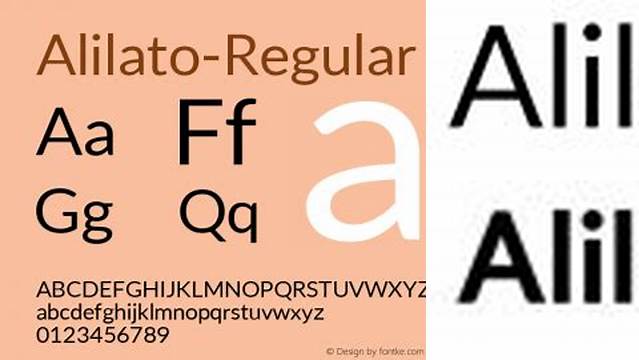
The Allure of Alilato Regular Font: Why Designers Love It
Hey guys, let's dive into the wonderful world of typography and talk about a font that's been making waves – the Alilato Regular font. If you're a designer, blogger, or just someone who appreciates a good-looking typeface, you've probably stumbled upon Alilato Regular and wondered what makes it so special. Well, let me tell you, this font has a certain charm that's hard to resist. Its clean lines, balanced proportions, and friendly curves make it incredibly versatile. Whether you're working on a sleek corporate branding project, a fun children's book, or a minimalist website, Alilato Regular fits right in. It’s not overly decorative, which is a huge plus. This means it doesn't scream for attention, but rather, it enhances your content, making it more readable and aesthetically pleasing. The regular weight offers a perfect balance, providing enough presence without being too bold or too light. It’s the kind of font that feels familiar yet fresh, making it a go-to for many projects. We'll be exploring how to get your hands on this gem, specifically the TTF version, which is widely compatible and easy to use across various design software. So, stick around as we uncover the secrets behind Alilato Regular's popularity and how you can incorporate it into your next creative endeavor.
Unpacking the Versatility of Alilato Regular Font
One of the most compelling aspects of the Alilato Regular font is its sheer versatility. Think about it, guys – how many fonts can you honestly say work equally well for a wedding invitation, a tech startup's logo, and a gourmet food blog? Alilato Regular is one of those rare finds. Its design strikes a beautiful chord between modern and classic. The letterforms possess a certain warmth that makes them inviting, yet they retain a professional crispness that lends credibility to serious projects. This adaptability means you don't need a whole arsenal of fonts to cover different needs; Alilato Regular can often do the heavy lifting. For body text, it’s exceptionally readable, ensuring your readers can comfortably digest longer pieces of content without their eyes getting tired. When used for headlines or titles, it has enough personality to be engaging without overpowering the message. This is crucial for effective communication. Imagine a website where the headings are in a wild, calligraphic font and the body text is in a plain sans-serif – jarring, right? Alilato Regular provides a harmonious flow, bridging the gap between impact and clarity. Its neutral yet distinct character allows it to complement other design elements, such as images, colors, and layouts, without clashing. This flexibility is a designer's dream, saving time and resources while ensuring a cohesive and professional look. We're talking about a font that can transition seamlessly from a playful social media graphic to a sophisticated annual report, and that’s a powerful asset in any designer's toolkit. Get ready to discover how this font can elevate your own projects.